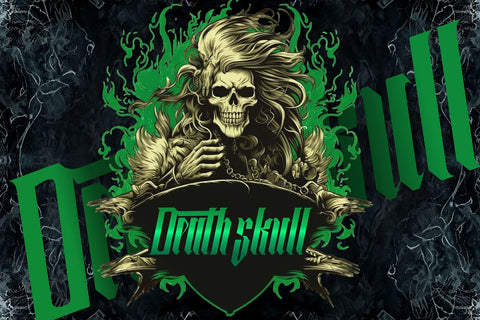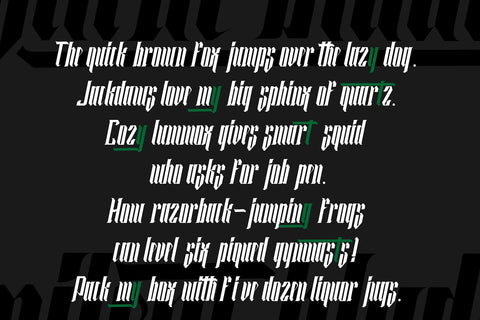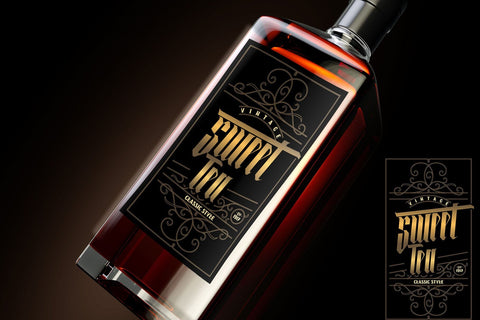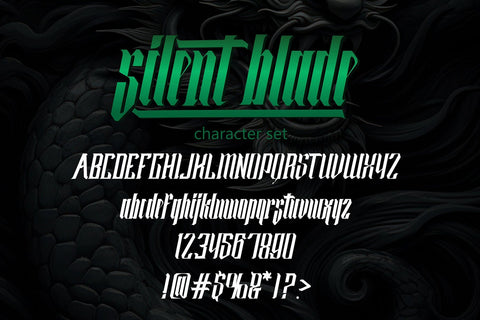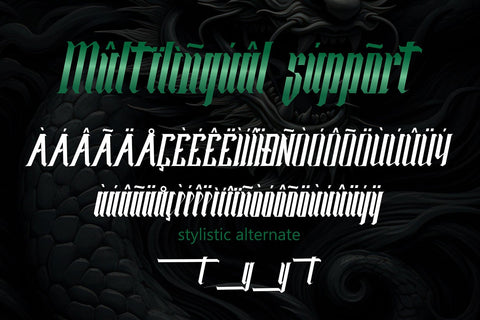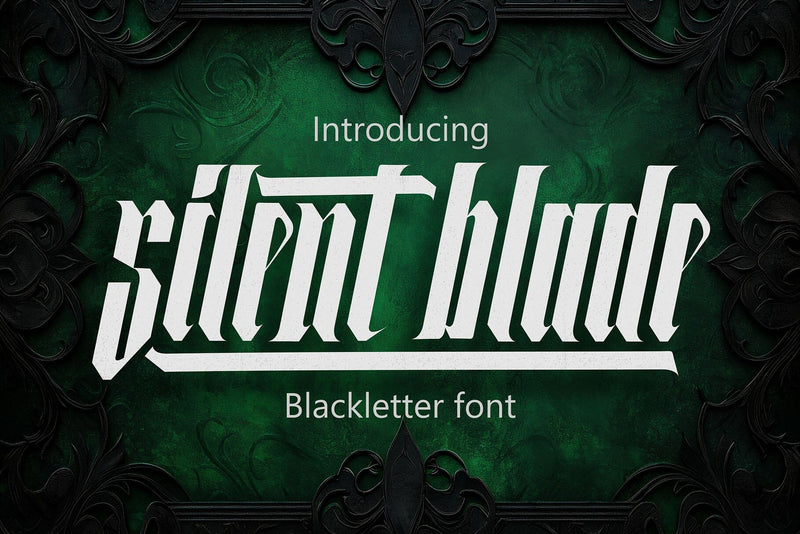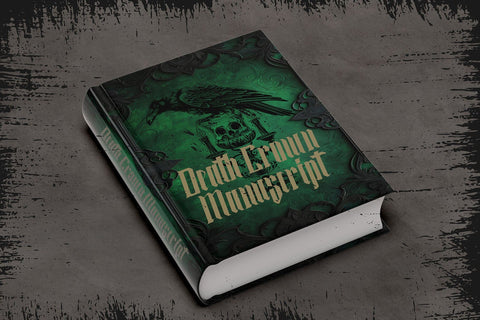
Silent Blade - Modern Blackletter Font
Silent Blade is a modern blackletter display font forged with precision and attitude. Inspired by medieval calligraphy and sharpened by contemporary design, this typeface combines traditional gothic elegance with a bold, modern edge. It’s crafted for designers who want to bring intensity, authority, and style to their typography.
Every stroke of Silent Blade feels carved — thick vertical lines balanced by sharp terminals and refined curves. The result is a typeface that looks both timeless and dangerous, echoing the spirit of old manuscripts and dark fantasy aesthetics while remaining versatile enough for modern branding.
Its design draws inspiration from blackletter traditions, tattoo lettering, and heavy metal logos, yet it’s been rebuilt with clean digital craftsmanship for perfect usability. Whether you’re designing a gothic apparel logo, a music poster, or a fantasy book cover, Silent Blade delivers the perfect balance between darkness and sophistication.
The dramatic contrast and angular flow make it a standout choice for projects that need visual power. Each letter feels like a blade stroke — strong, confident, and deliberate.
- Uppercase Letters with striking, strong presence
- Numbers and Punctuation for design flexibility
- Multilingual Support for worldwide use
- Stylistic Alternates to add creative variation
- Fully optimized for print and digital applications
Perfect For:
- Blackletter and gothic branding
- Tattoo-inspired artwork and metal logos
- Band posters, flyers, and merchandise
- Fantasy novels, game titles, and dark packaging
- Apparel, streetwear, and album covers
Why Designers Love Silent Blade
Silent Blade offers the visual drama of classic gothic fonts with the usability of modern typefaces. Its crisp geometry ensures legibility even at smaller sizes, while its razor-sharp details shine in large titles and logos. Designers love it because it commands attention — every letter looks like it’s been sculpted from steel.
It’s a typeface for fearless creators who want to merge heritage and modernity, blending the ornamental beauty of medieval calligraphy with sleek digital design. Whether you’re working on branding, apparel, or visual art, Silent Blade gives your project an unmistakable gothic flair that never fades.